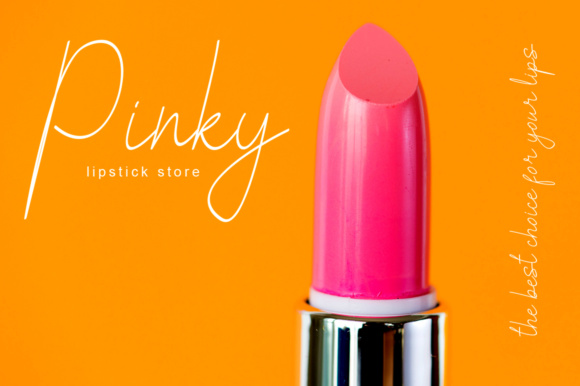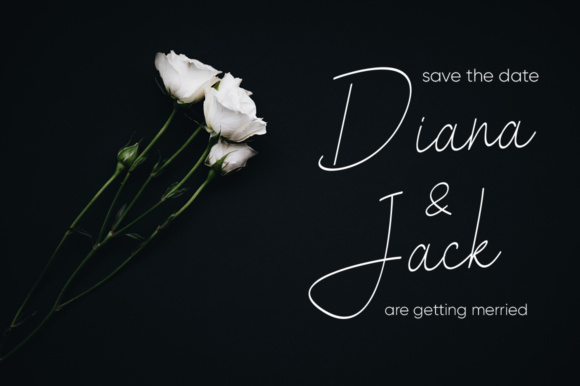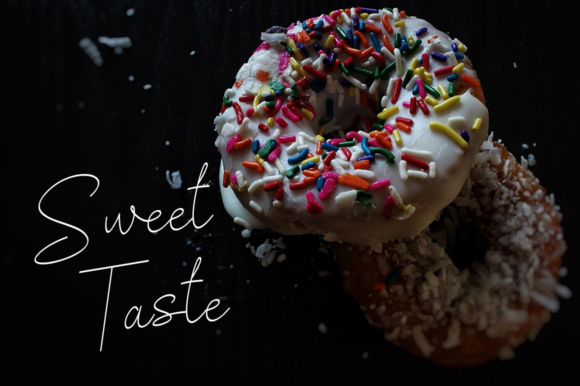
Gladiesk Poetriea Font
Gladiesk Poetriea Font – Modern Script Font, from Integritype Studio, is a premium Modern Script Font, perfect for any project like: logos, branding projects, homewares designs, product packaging, mugs, quotes, posters, shopping bags, t-shirts, covers books, business cards, invitation cards, greeting cards, labels, photography, watermarks, special events and all your other luxury projects that require a premium taste.